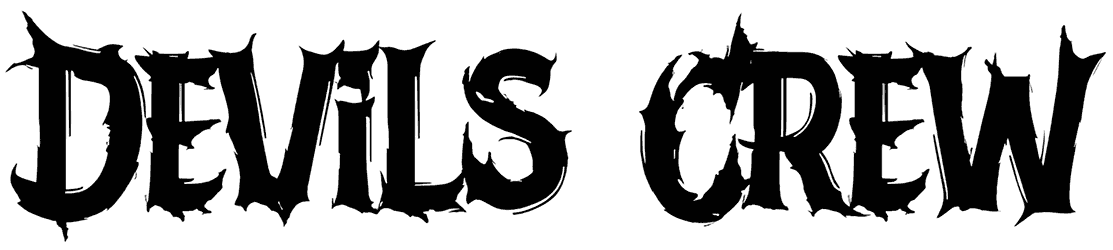
Devils Crew Font
The Devils Crew, an evil font, is ideal for those who wish to give their digital works an air of menace. It may give off a more courageous and terrifying vibe than other fonts, despite having only uppercase letters and a few numbers.